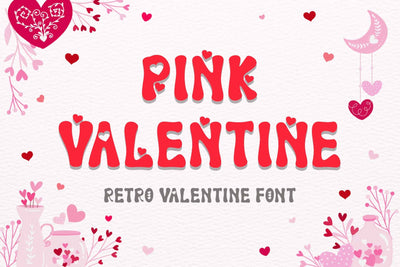
PInk Valentine
"Pink Valentine" is a retro font with hearts on the letters. This font is equipped with uppercase, lowercase (uppercase letters with hearts), numerals, punctuations and also multilingual support. It is suitable for Valentine's Day, Winter, Christmas, Easter, Spring, Summer, and others.